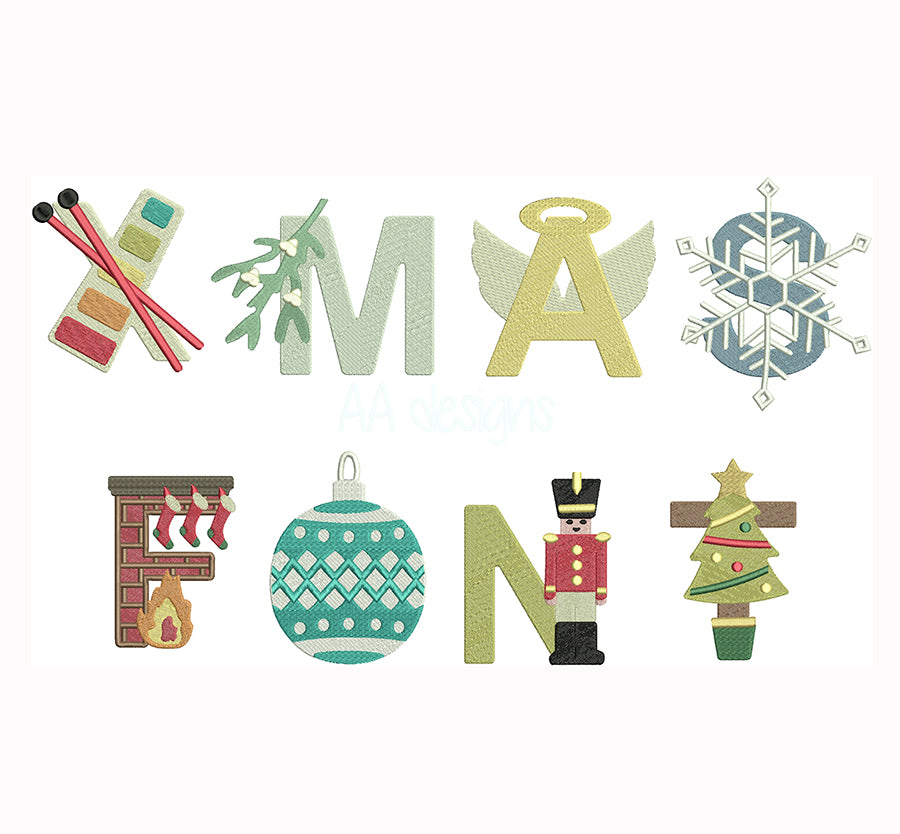
Christmas embroidery font. Machine embroidery alphabet for Christmas gift. Very cute embroidery font. Instant download.
Xmas embroidery font.
This font comes with letters in 3 sizes, A-Z (Upper case)